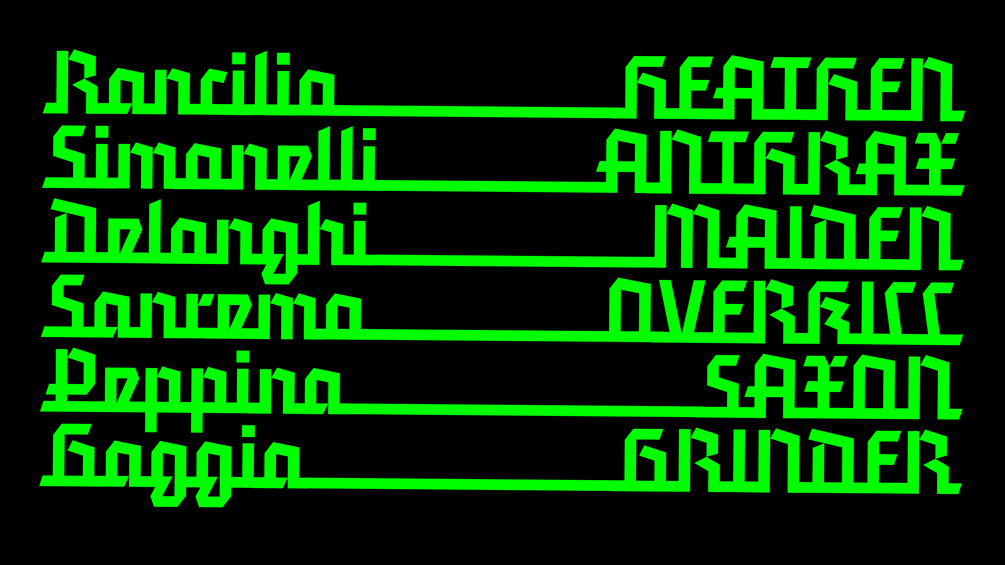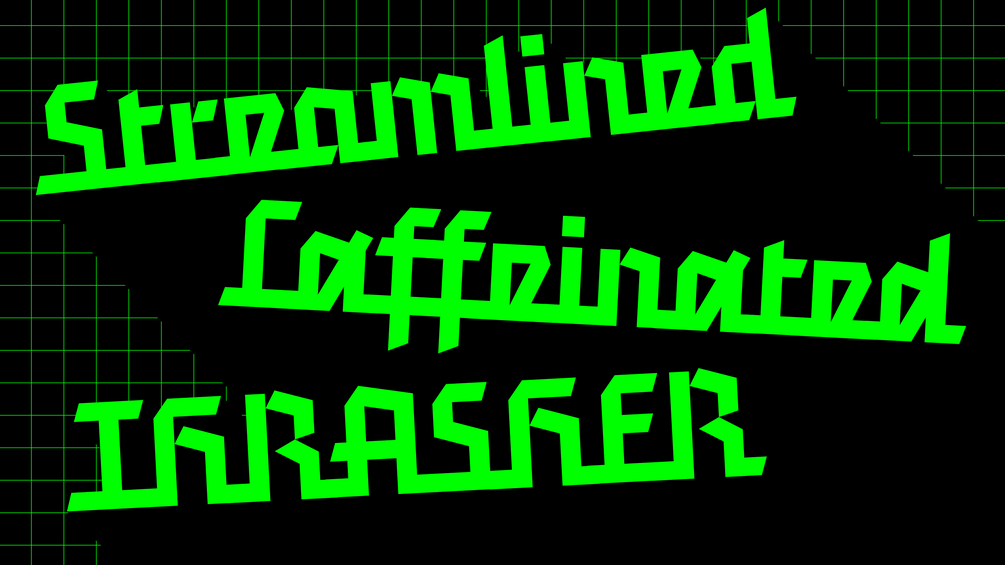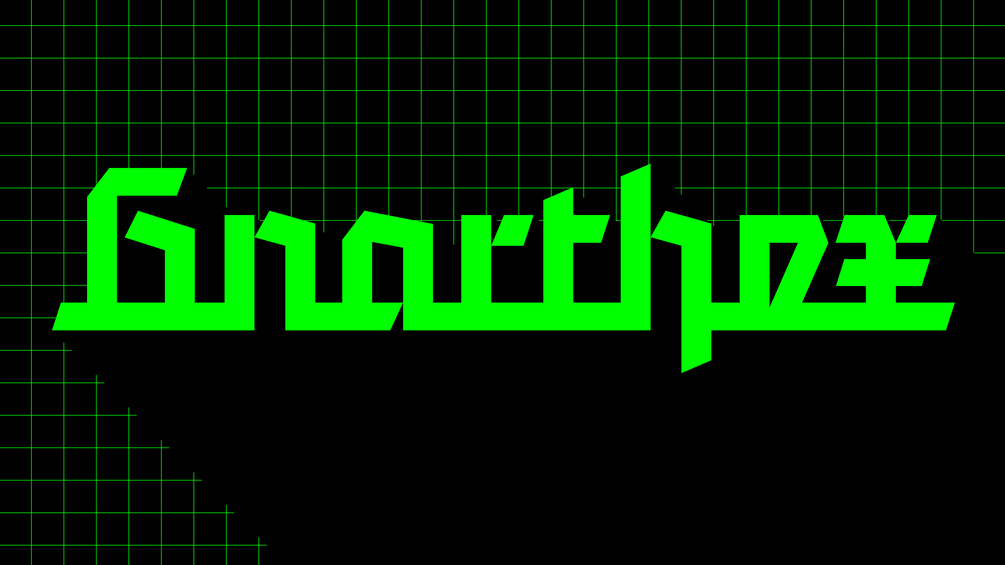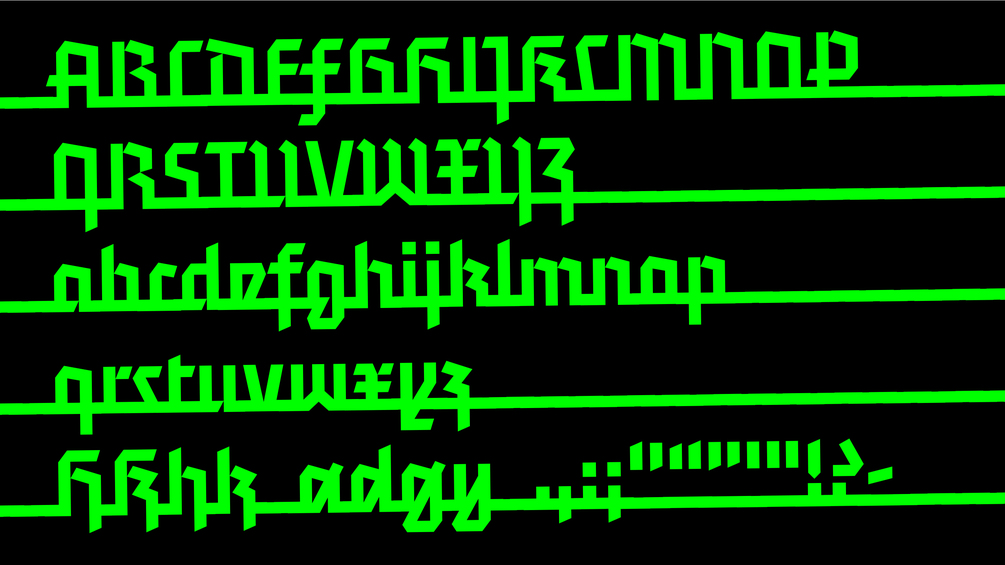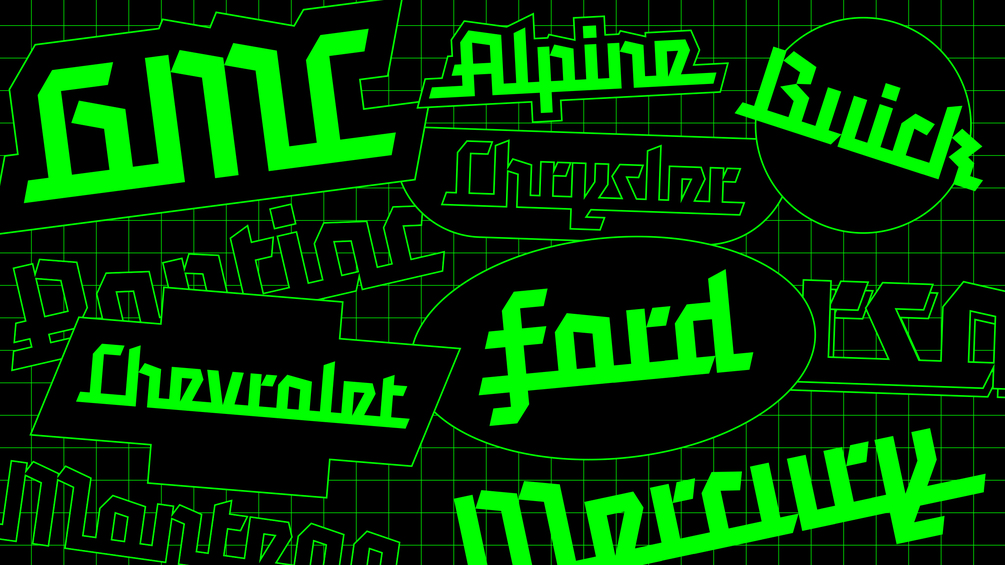
Gnarthex
The collab you never knew you needed. Vintage chrome automobile lettering meets gothic manuscript. Espresso machine nameplate meets thrash metal band logo. Script typeface meets the Berlin U-Bahn. The list goes on and on, just like that classy baseline stroke. Use the wordspace to break it up or the underscore to keep a good thing going.
Legibility? Low. Utility? Also low. Effort to produce? Rock bottom.
Come for the rigid textura construction but stick around for the cursive alternates and make a few extra-poky friends.
A juicy script typeface
OpenType features
Cursive alternates (.ss01), Spiky H + K (.ss02)